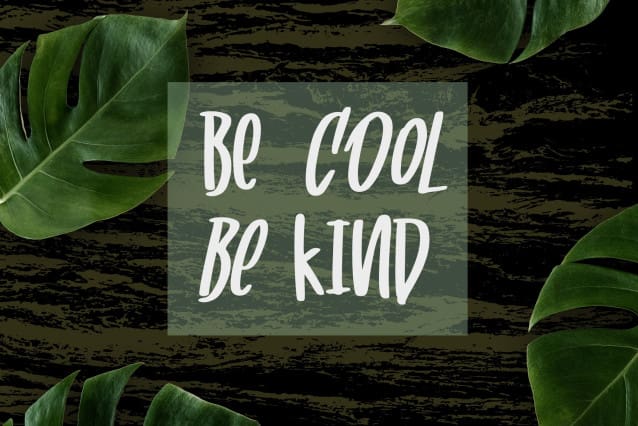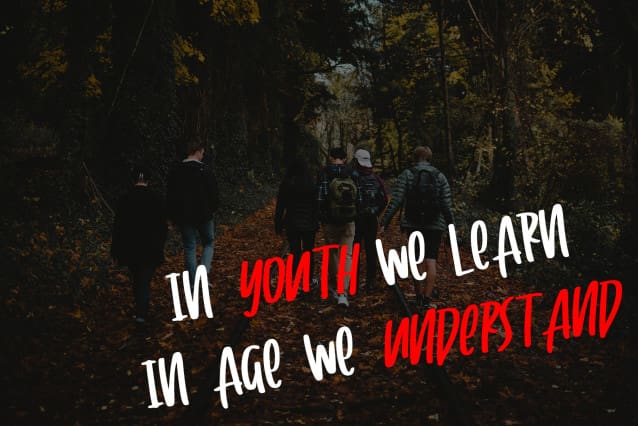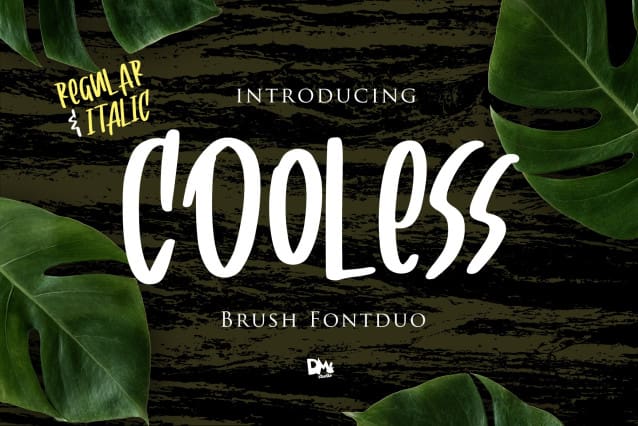
Cooless Brush Font
Cooless Brush Font, is a modern brush handwritten font with bold, dynamic strokes that convey a sense of energy and spontaneity. Its cursive letterforms and unique character shapes make it ideal for branding, packaging, and editorial design that demands a contemporary and expressive aesthetic with a touch of creativity and individuality.